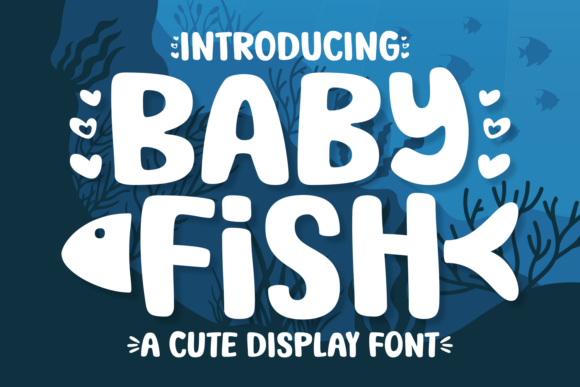
Step into a world of whimsy and charm with Baby Fish Font, the display font that sparks joy and captures hearts. Its playful and fun persona lends an irresistible appeal to any informal creative project, transforming the ordinary into the extraordinary.
Picture this: a font so delightful, it dances across the page like a melody, captivating your audience with its charming aura. Baby Fish Font is meticulously crafted with nicely rounded characters and cute accents, each letter a stroke of genius that elevates your designs to new heights.
With Baby Fish Font, you embark on a creative journey where imagination knows no bounds. Create enchanting invitations that transport your guests to a world of wonder, design captivating posters that ignite smiles, and craft whimsical logos that leave a lasting impression. The possibilities are endless, limited only by your creativity.
This extraordinary font is PUA-encoded, a magical key that unlocks a treasure trove of glyphs and swashes. Access a world of artistic possibilities, where you can effortlessly add a touch of elegance or a dash of playfulness to your designs. Unleash your creativity and turn your visions into reality with Baby Fish Font.
Don't settle for ordinary fonts. Embrace the extraordinary. Dive into the world of Baby Fish Font and experience the joy of creating designs that captivate and inspire. Let your imagination soar and let Baby Fish Font be your creative companion, guiding you on a journey of artistic expression.